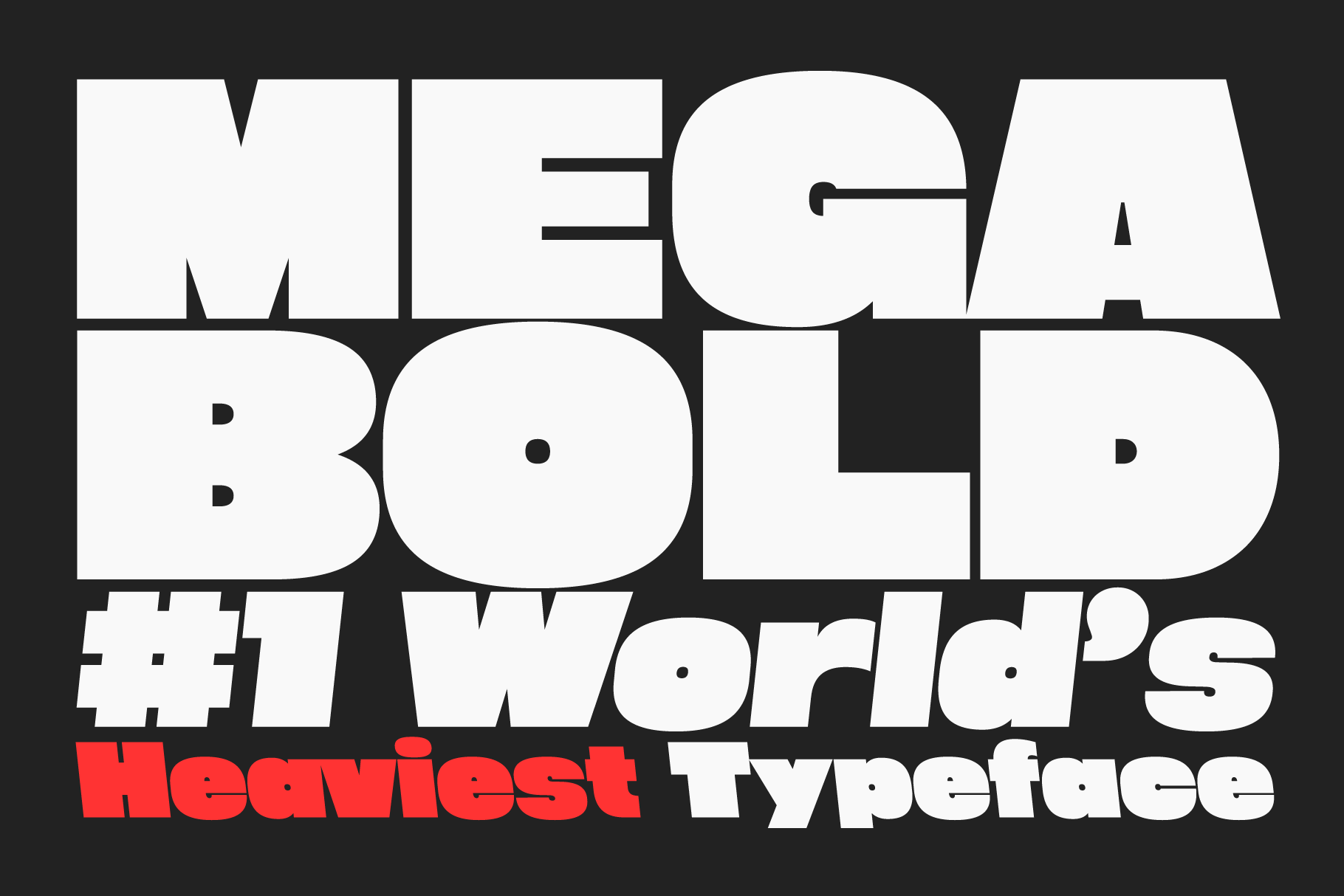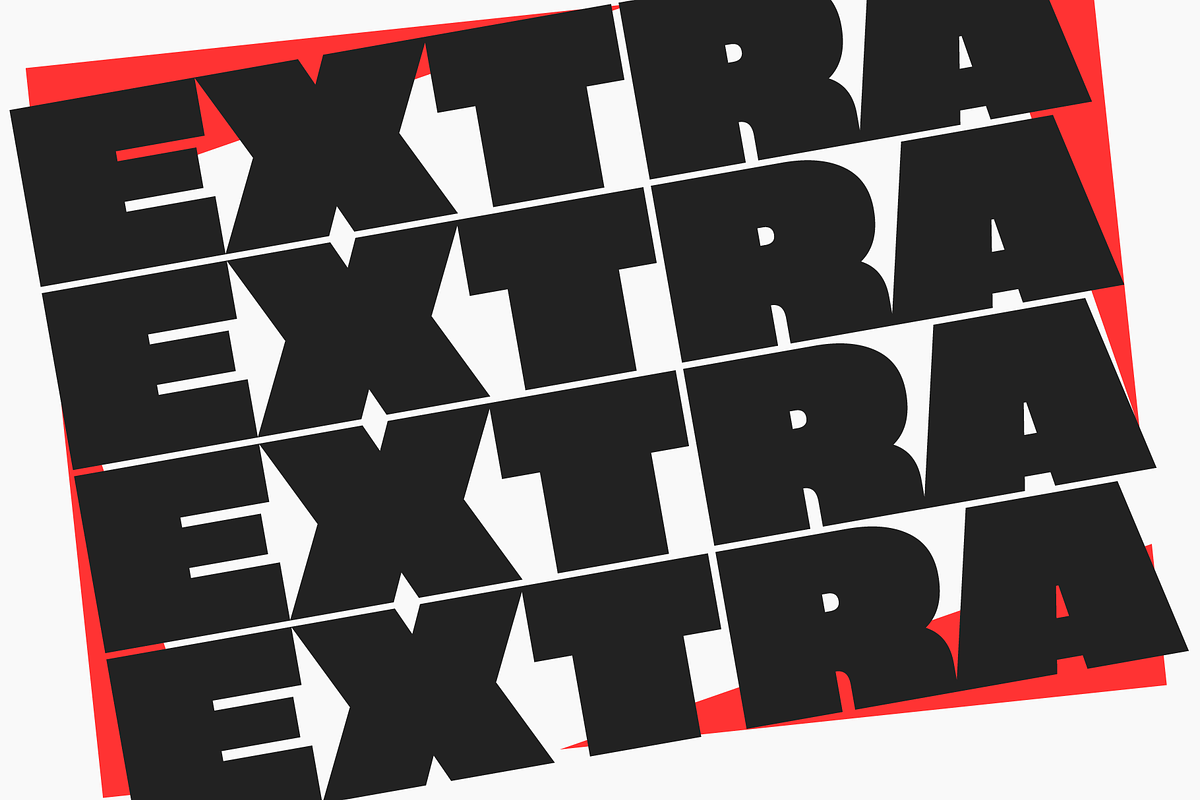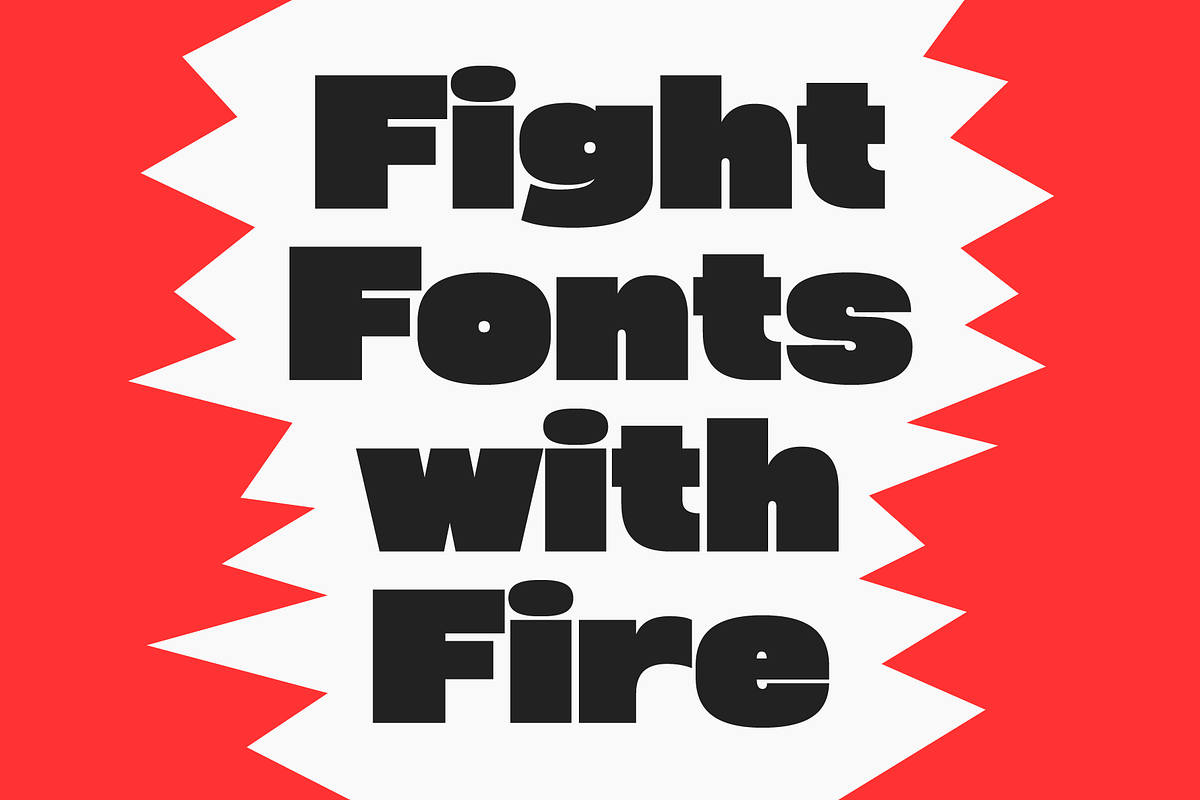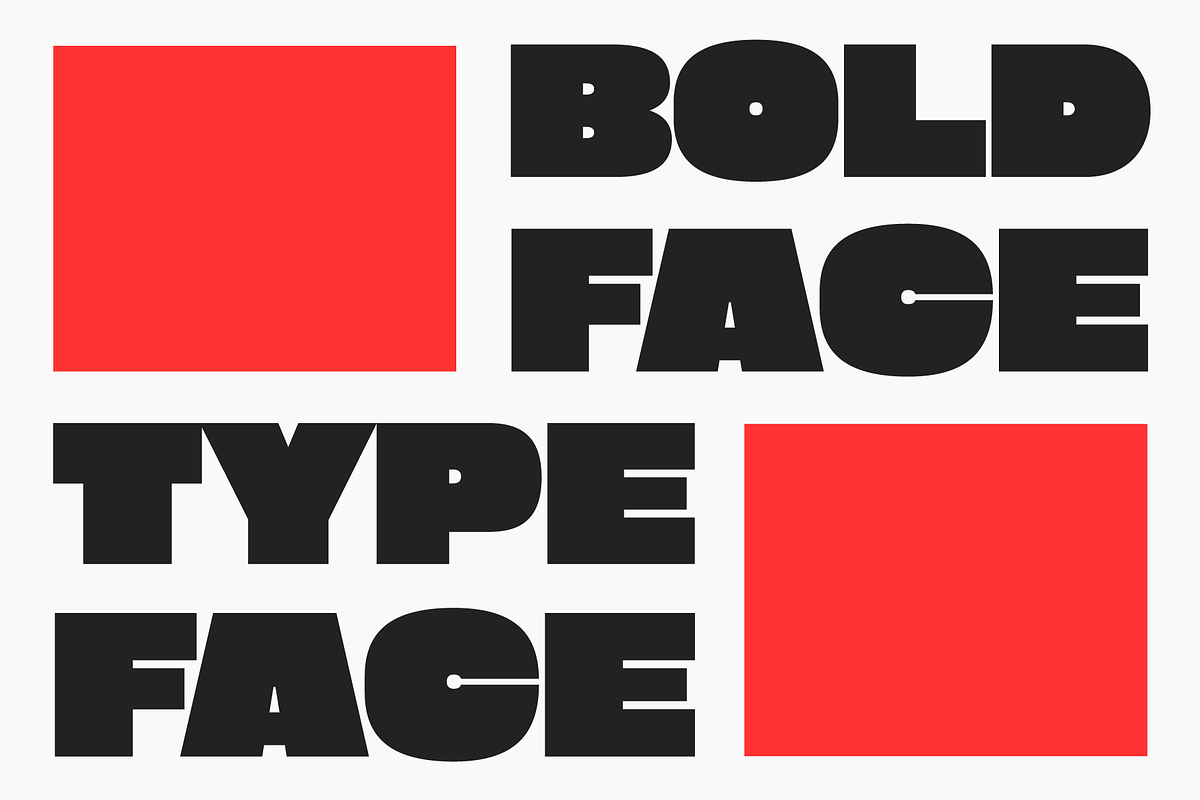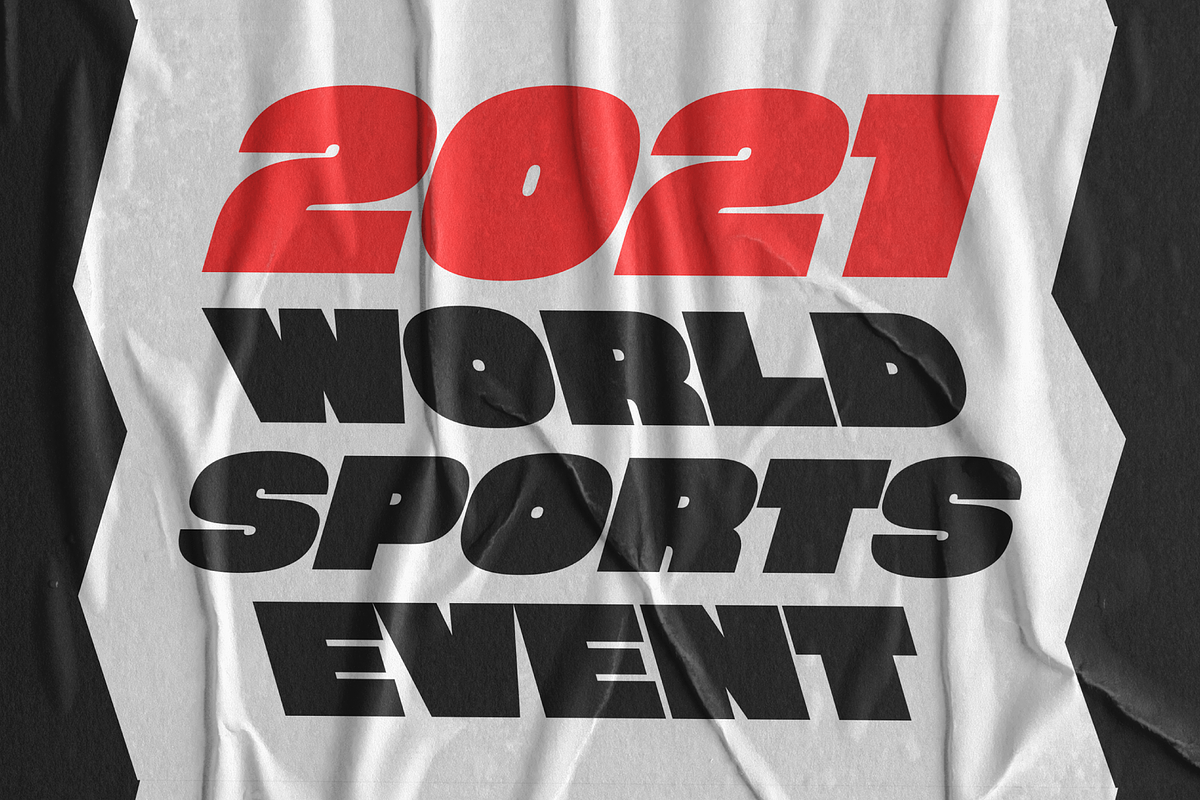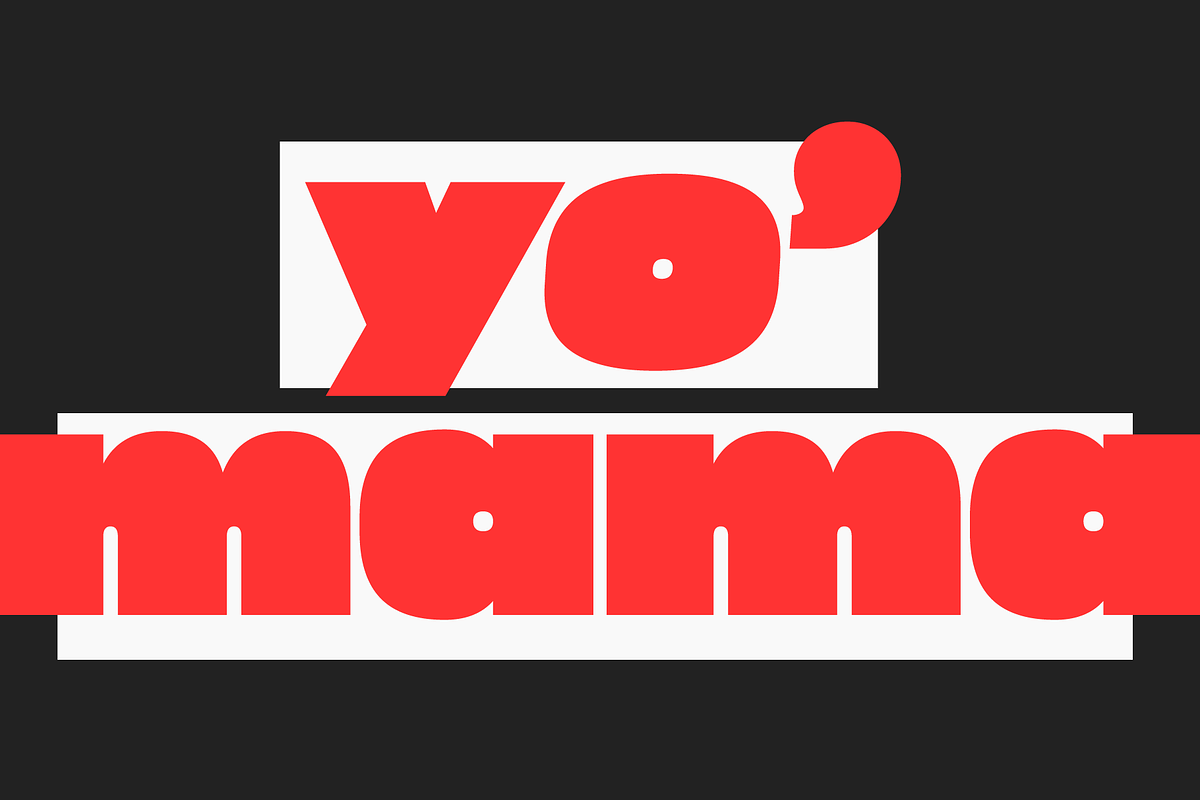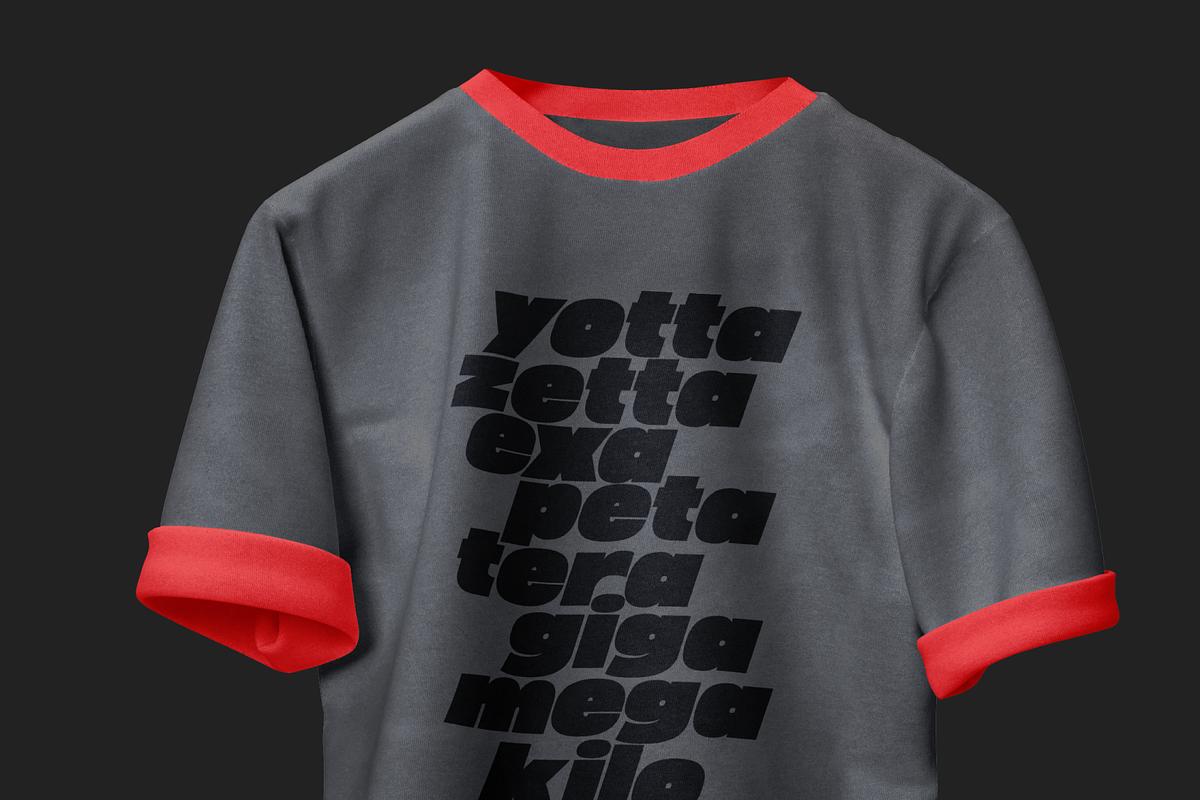
Megabold: World's Heaviest Typeface
Megabold: #1 World’s Heaviest Typeface
Megabold speaks louder, like a typeface megaphone. Choose your own emphasis with 16 left & right slanted styles, so you can say it exactly how you want to say it.
Words can speak louder than words. Be bolder.
Megabold's 1.200 update increases the total glyphs to 724, and language support to 430 languages! Various small improvements have also been made.
17 styles included
- Megabold Upright
- Megabold Left (×8 slanted styles from 2–16°)
- Megabold Right (×8 slanted styles from 2–16°)
Character set
- Latin alphabet [A–Z, a–z]
- Proportional lining figures [0–9]
- Punctuation and symbols
- Accented characters and additional letters for extended European and African language support